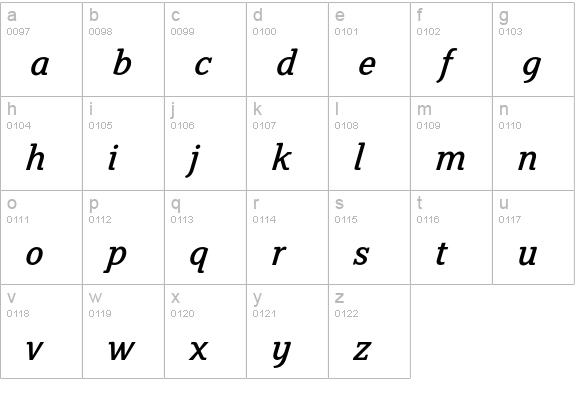
FS Clerkenwell Italic Font Details
FS Clerkenwell Italic is a distinctive, italic variant in the FS typeface family \xE2\x80\x94 well suited to design and typography projects.
FS Clerkenwell Italic is a sleek and modern typeface that exudes sophistication and elegance. Its flowing curves and delicate strokes give it a unique and stylish look, making it perfect for adding a touch of class to any design project. The italicized style adds a sense of movement and dynamism to the text, making it stand out and capture the viewer's attention. One of the best things about FS Clerkenwell Italic is that it is available for free download at FontsMarket.com. This means that you can easily access this high-quality font without any cost, making it a great option for designers on a budget or anyone looking for a stylish and versatile typeface to add to their collection. Whether you're working on a branding project, website design, or any other creative endeavor, FS Clerkenwell Italic is sure to elevate your work and give it a professional and polished finish. Download this font today and see how it can enhance your designs with its charm and elegance.